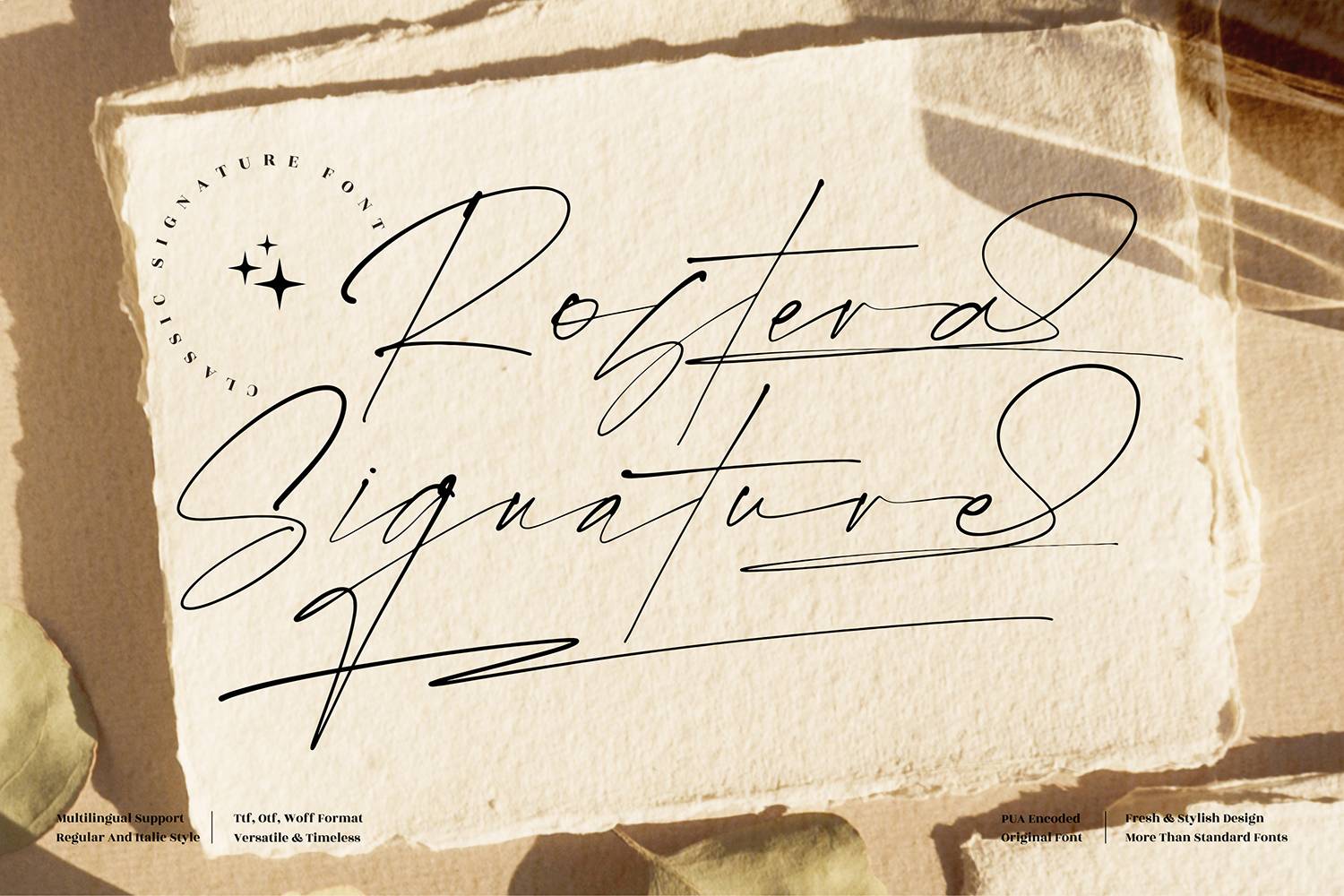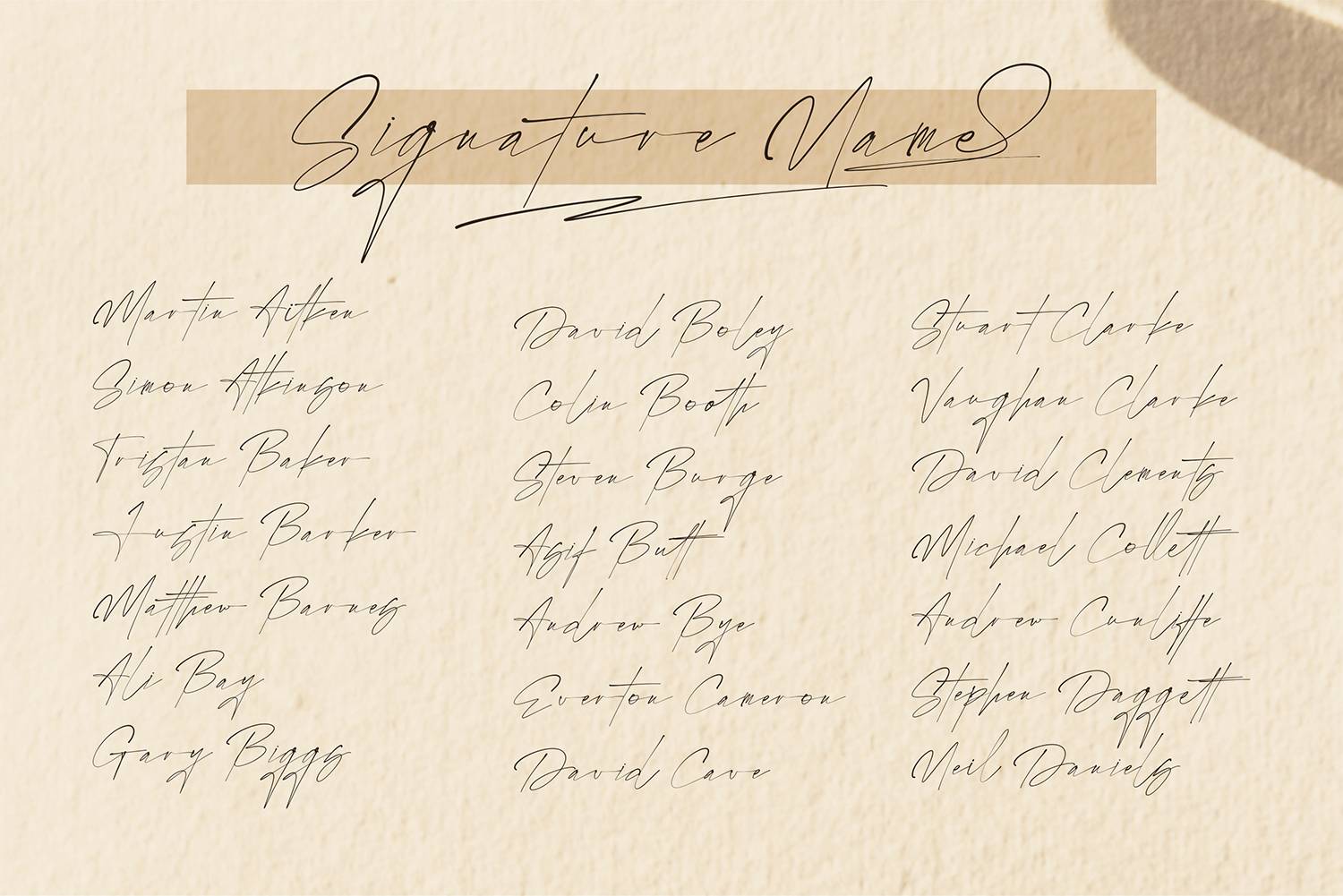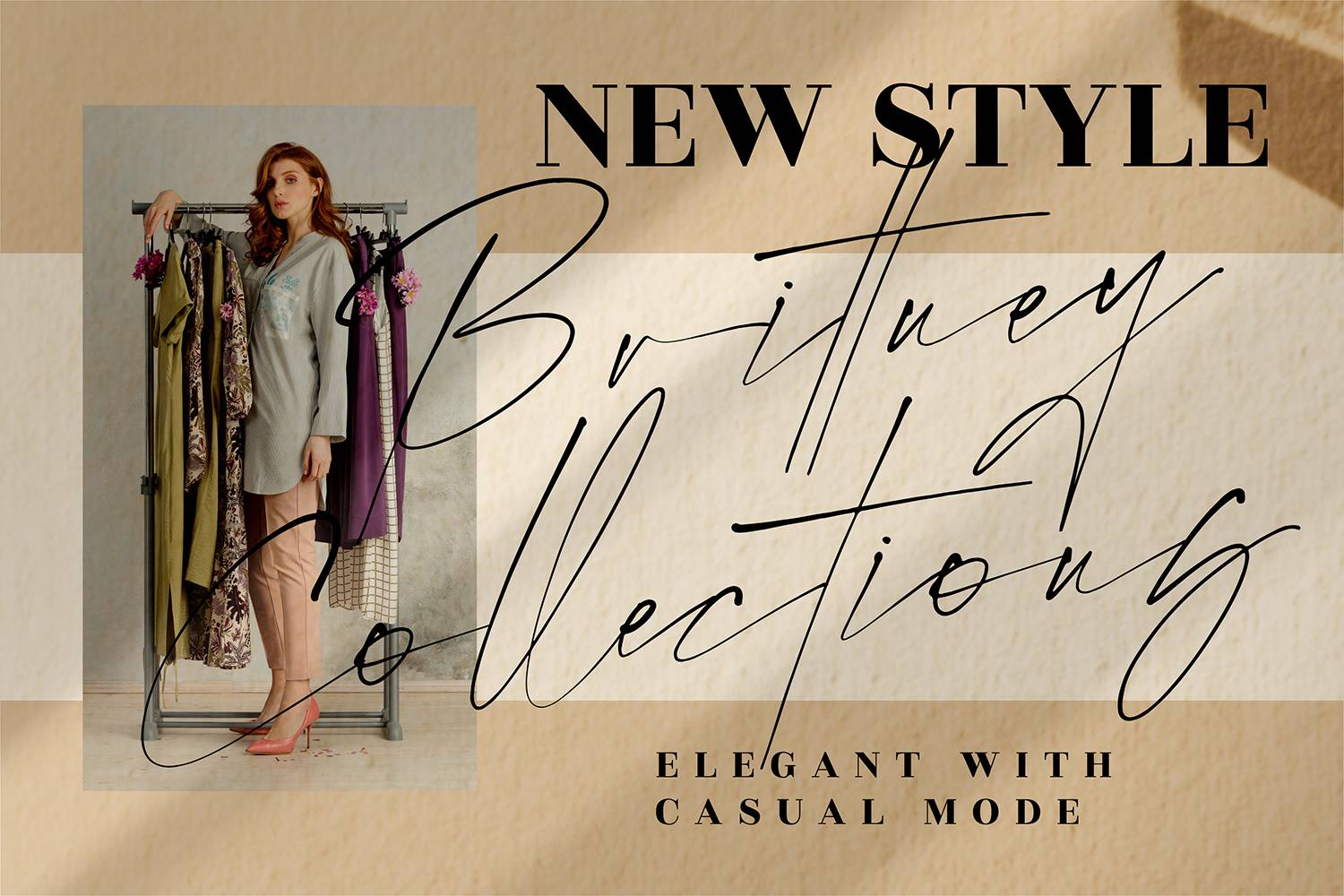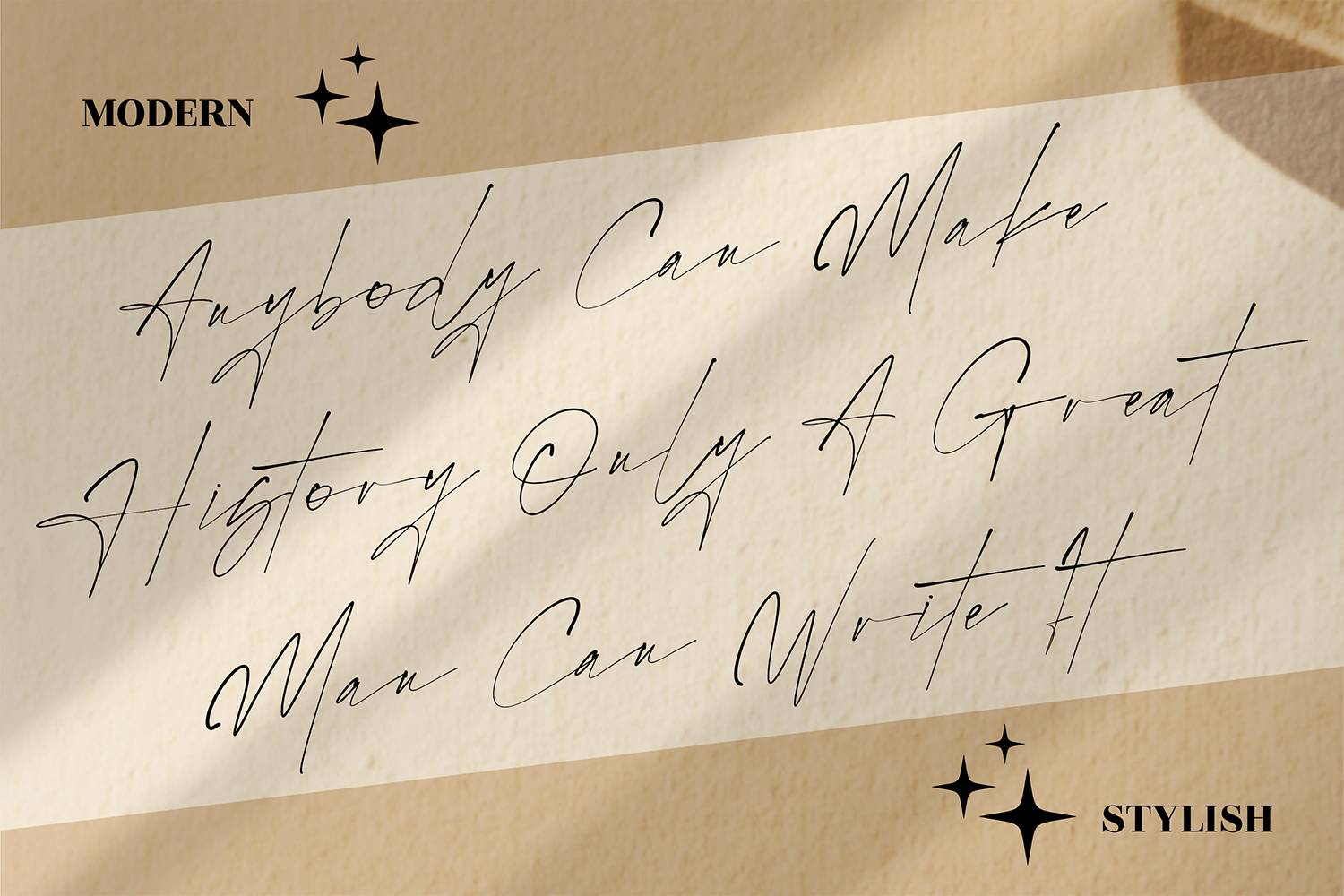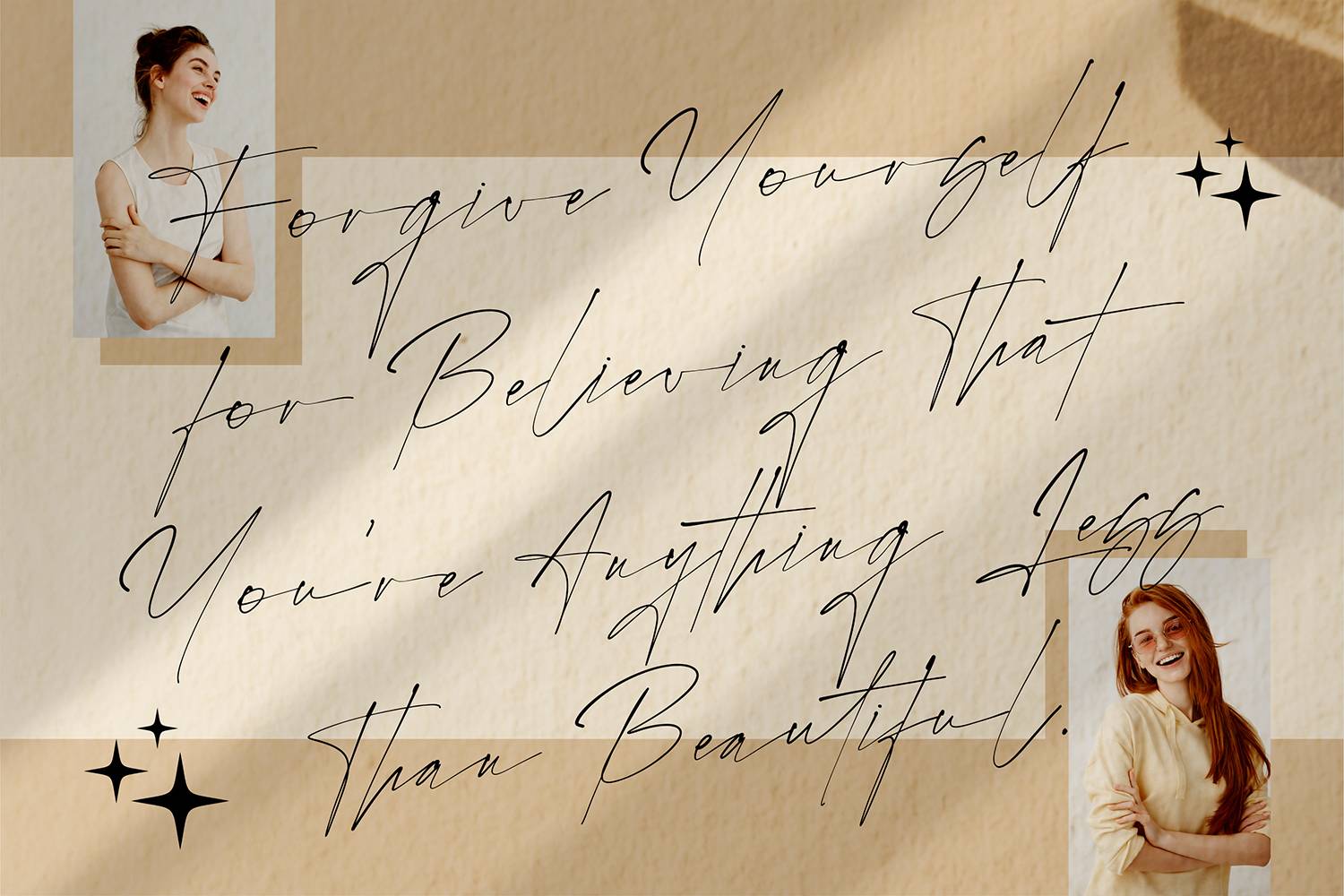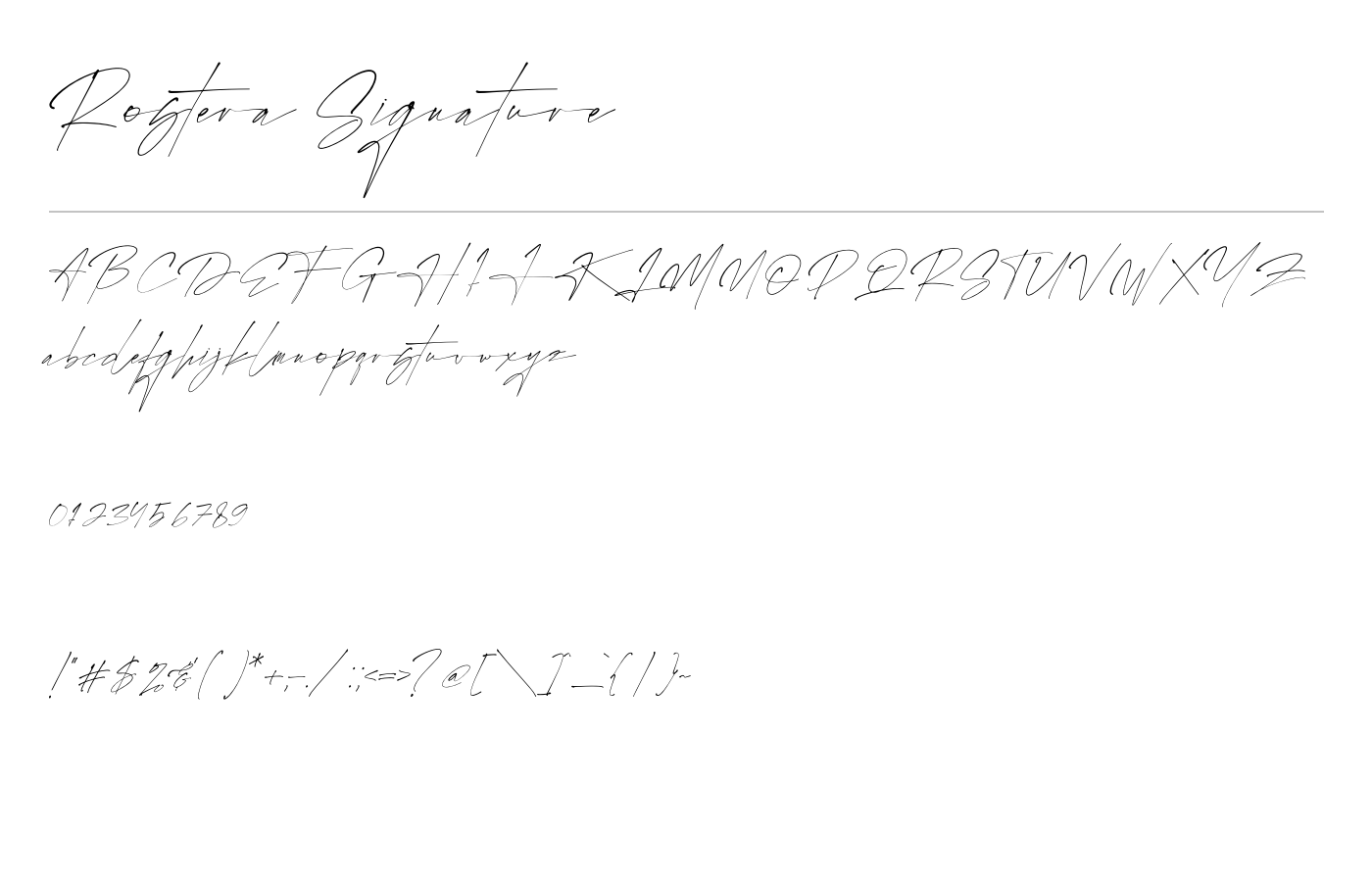
Rostera Signature Font is a delicate and elegant script that mimics natural, flowing handwriting with fine, wispy strokes and sophisticated loops. Its airy, lightweight style conveys a personal and luxurious feel, making it perfect for branding, invitations, and stylish editorial uses where a refined yet approachable touch is desired. This font works best in display sizes, adding charm and elegance to logos, fashion packaging, and high-end creative projects.
Rostera Signature Font
About Rostera Signature Font